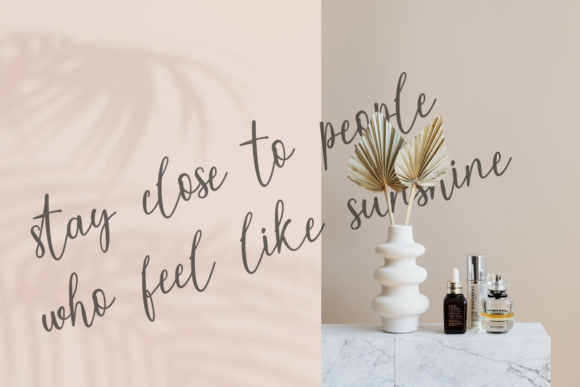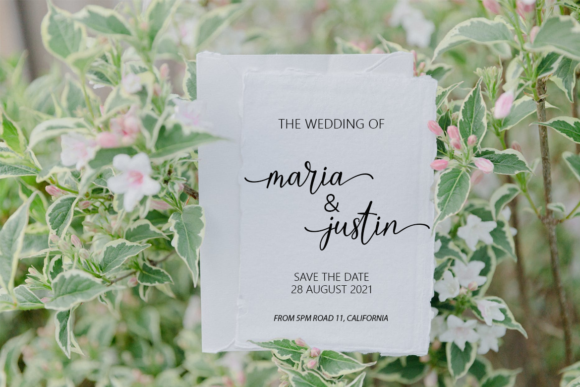
About Posteraphy Font
Posteraphy is a lovely and delicate script font that exudes elegance and class. This font was particularly crafted for those who need a beautiful and refreshing look to their designs. Posteraphy is PUA encoded which means you can access all glyphs and swashes with ease!